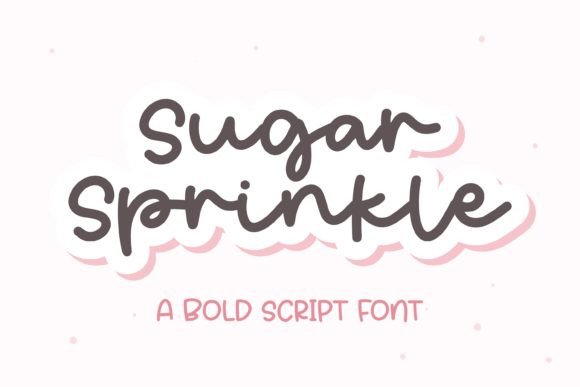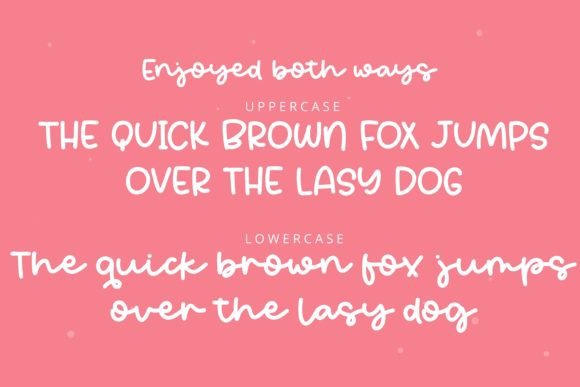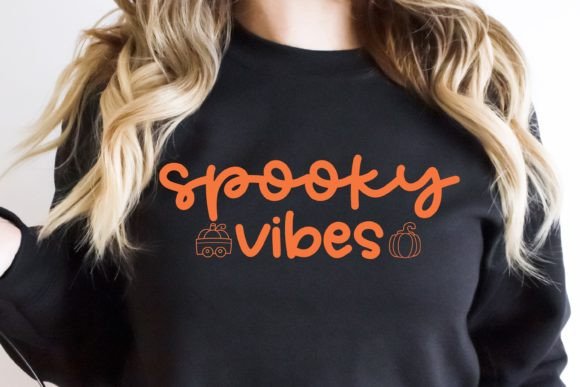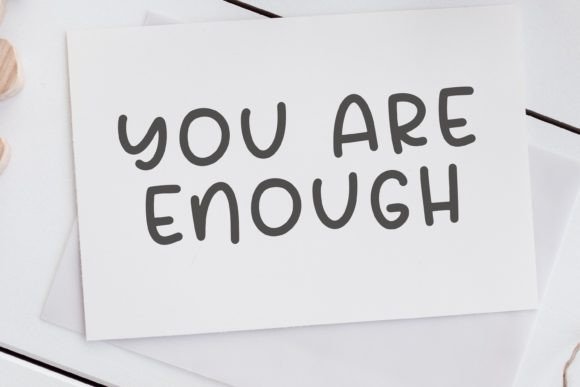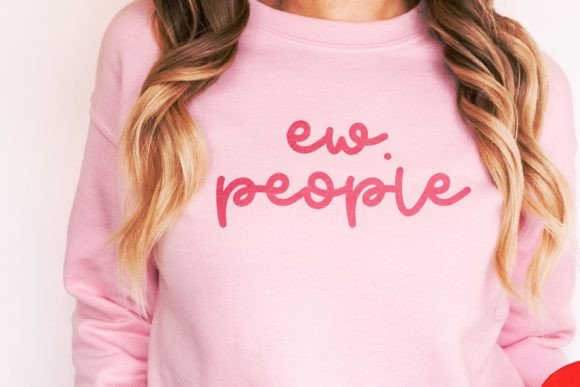
Sugar Sprinkle Font
Sugar Sprinkle is a sweet and cute handwritten font. Fall in love with its incredibly versatile style and use it to create gorgeous wedding invitations, beautiful stationary art, eye-catching social media posts, and much more!